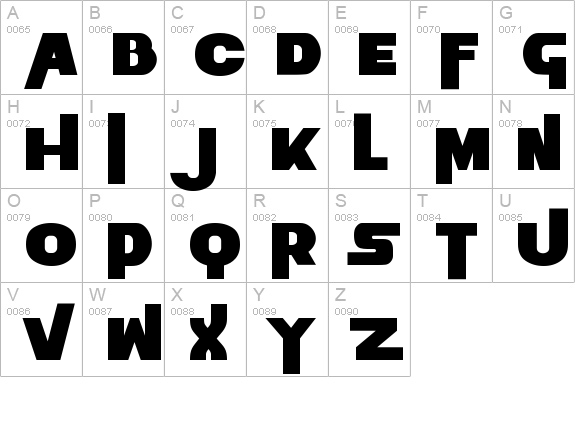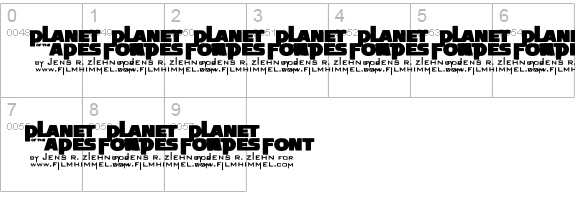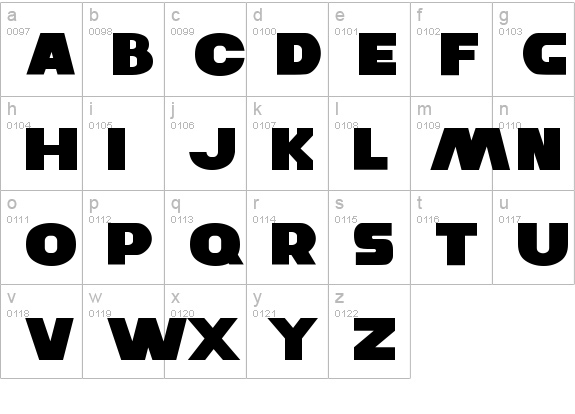
Planet of the Apes Font Details
Introducing the captivating and immersive Planet of the Apes font—a remarkable typeface that beautifully captures the essence of the iconic film franchise. This font embodies the primal strength, intelligence, and expressive nature of our simian counterparts, adding a touch of untamed power to your design projects. Crafted with meticulous attention to detail, the Planet of the Apes font boasts a distinct blend of boldness and elegance. Each character exudes a sense of primal energy, with sharp edges and sleek curves that seamlessly merge together. The result is a visually striking typeface that demands attention and effortlessly conveys the primal essence of the apes. What makes the Planet of the Apes font even more remarkable is that it is available for free download exclusively at FontsMarket.com. Now, you can unleash the untamed creativity within you without any barriers, as this incredible font is freely accessible to all. Whether you are a dedicated fan of the Planet of the Apes franchise or simply seeking a unique and eye-catching font for your next project, this is a font that will undoubtedly captivate and inspire. Whether you are working on a movie poster, a book cover, a logo, or any other creative endeavor, the Planet of the Apes font will add an extra layer of depth and intrigue. It will transport your audience to a world where apes reign supreme, evoking a sense of awe and wonder with every stroke of the keyboard. So, unleash your inner simian and let the Planet of the Apes font guide your creative journey. Download it for free at FontsMarket.com and embark on a design adventure like no other. With this font, you have the power to create designs that will leave a lasting impression and transport your audience to a world where apes conquer all.